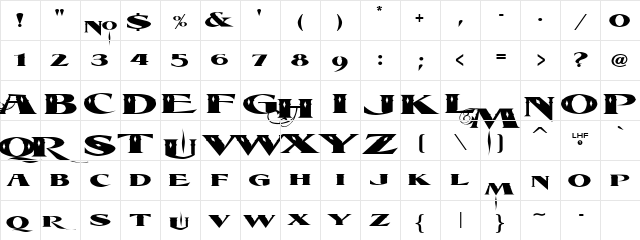
LHF Equinox Regular
Design Context for LHF Equinox Typeface
LHF Equinox is a composed and adaptable typeface that performs quietly and consistently across a wide range of design contexts.
Pro Tip: Use LHF Equinox in both headline and body roles to test its range before committing to a single application.